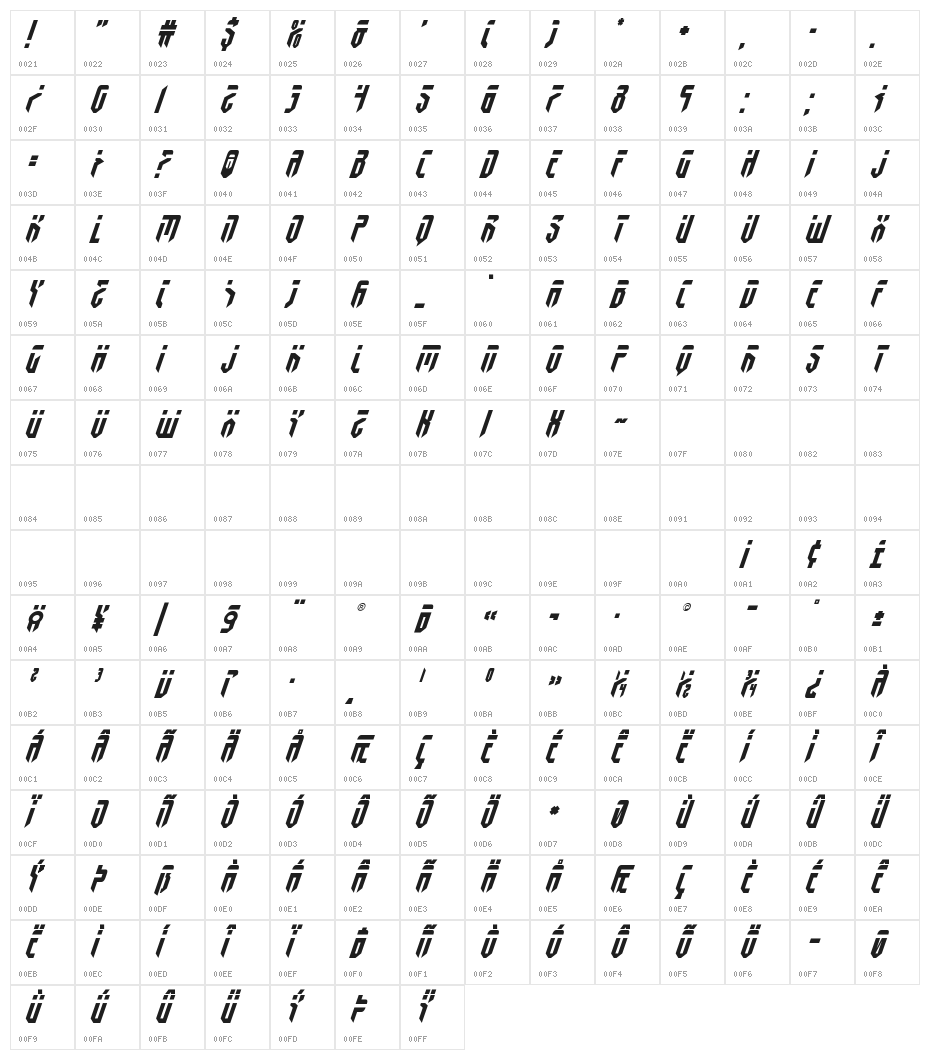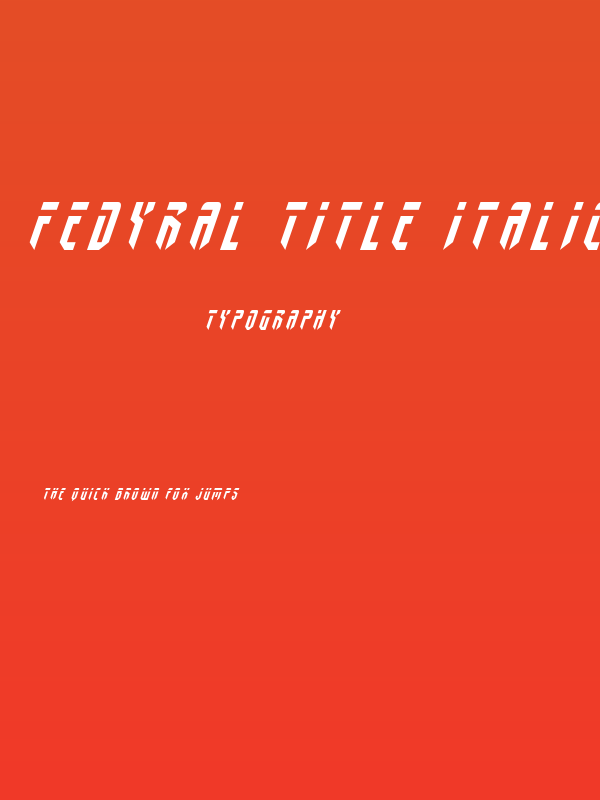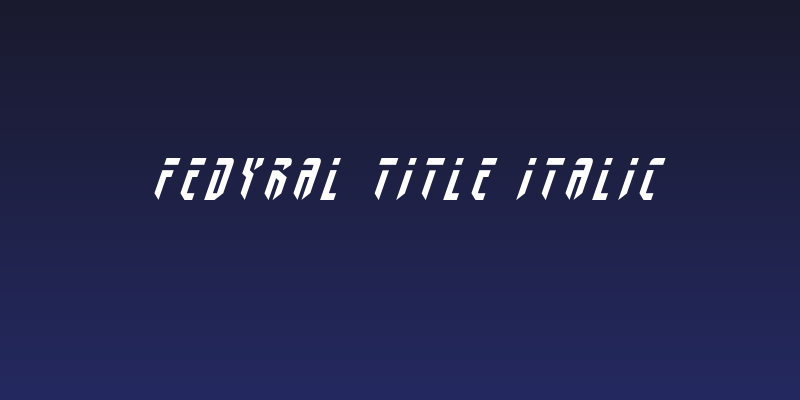
Fedyral Title Italic Font
Fedyral Title Italic Description
This font features a bold and dynamic design with a distinct italic slant, giving it a sense of movement and energy. The characters are sharply angular, with a futuristic and geometric aesthetic. The uppercase and lowercase letters maintain a consistent style, emphasizing sharp edges and diagonal lines. The numerals and special characters follow the same design principles, ensuring uniformity across all glyphs. This font's unique style makes it suitable for projects that require a modern and edgy look.
| Proposed Projects | Ideal for sci-fi themed posters, video game titles, and modern branding projects. |